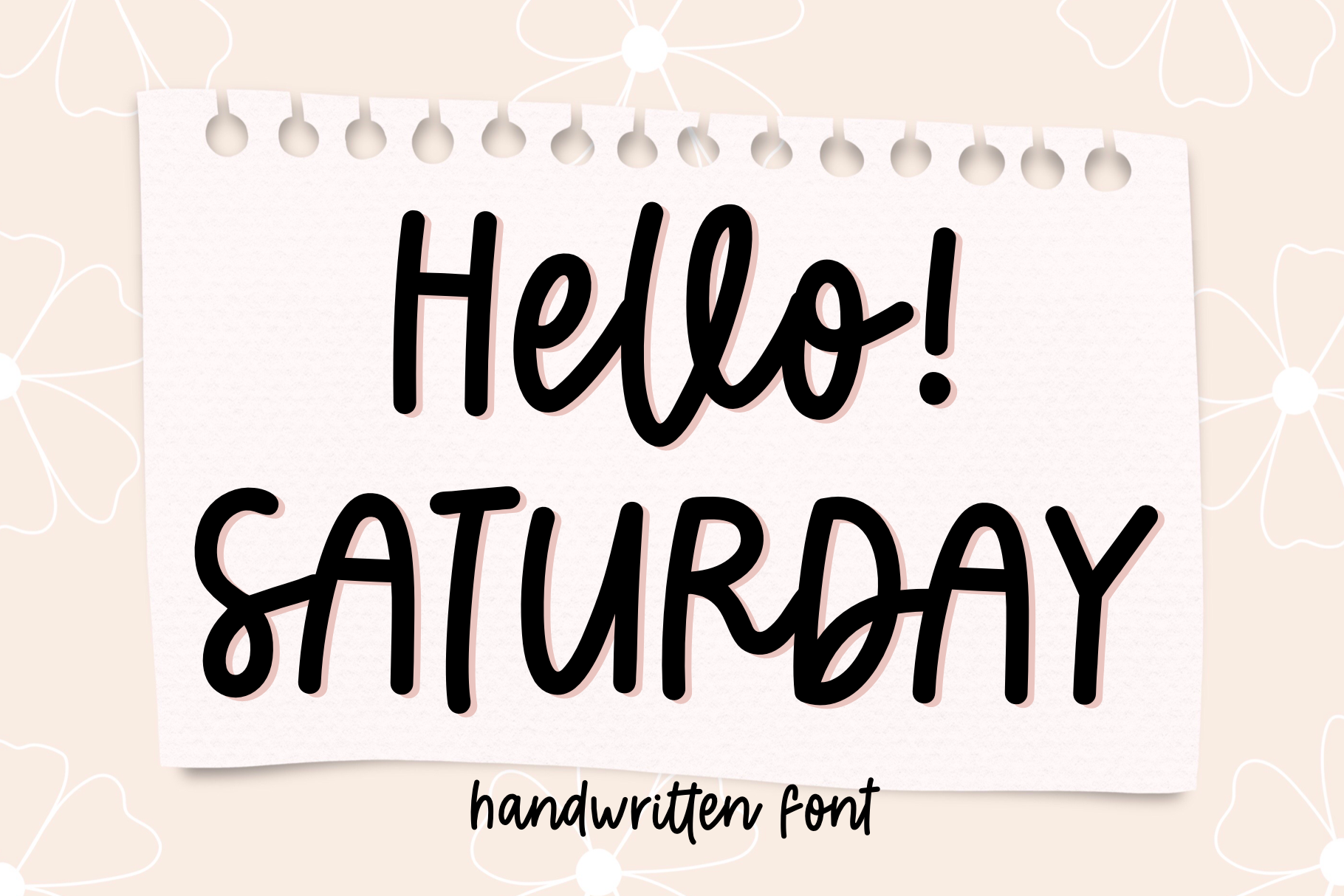
Hello Saturday handwritten font
Hello Saturday, a cute and sweet handwritten script font. You can use this font in various projects - blog posts, digital planner, invitations, greeting cards, planners, photo albums, decorations and much more. Thank you :)